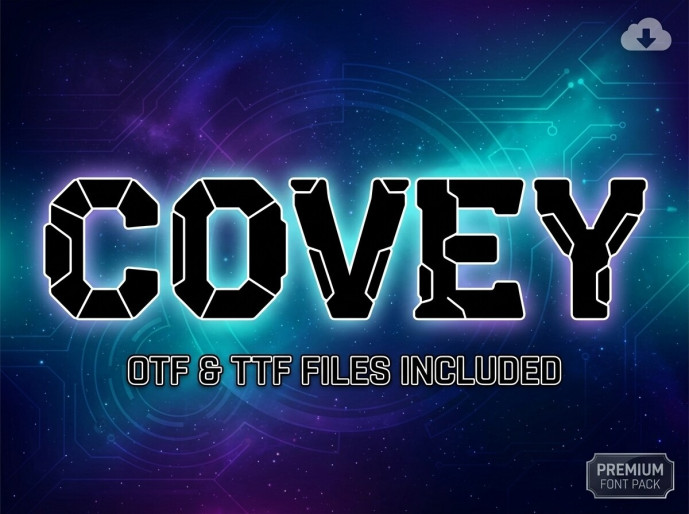
Launch your designs into the digital stratosphere with Covey, a high-octane geometric sci-fi display font! Covey is the perfect design asset for futuristic indie video games, sci-fi movie titles, esports branding, tech-centric logo designs, and high-energy streetwear graphics.